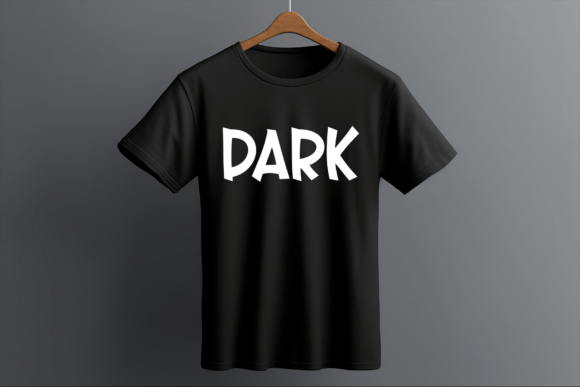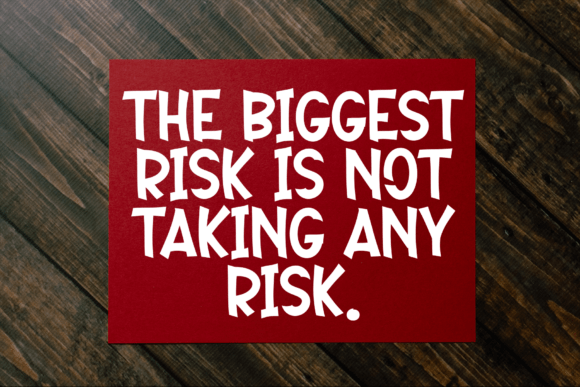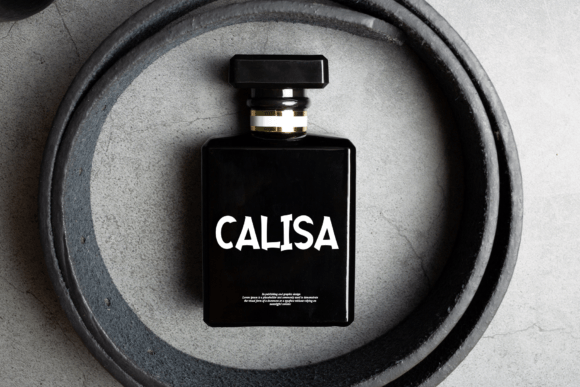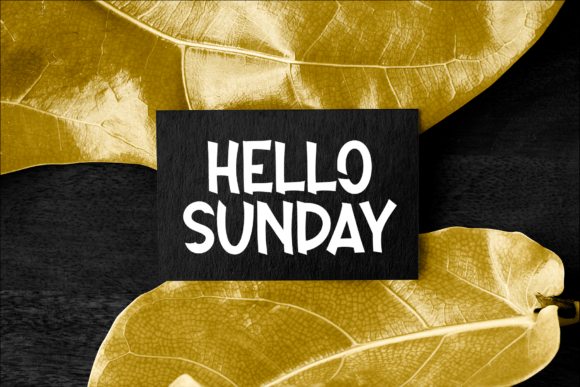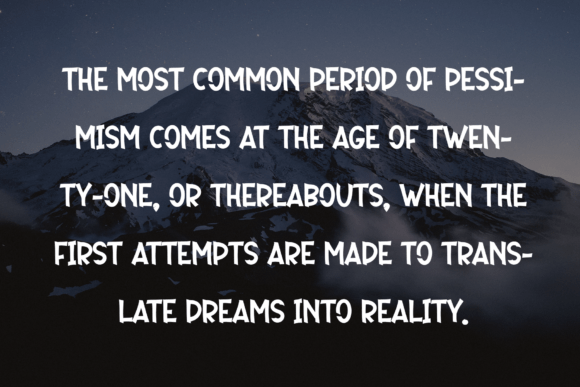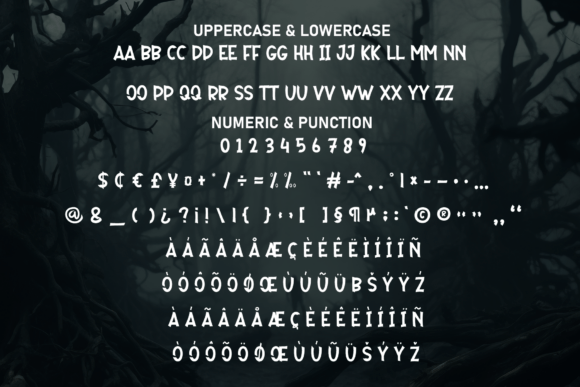
Introducing Ghost Jungle Font: Add a Touch of Whimsy to Your Creative Projects
Are you looking for a font that can add a dash of charm and personality to your designs? Look no further than the Ghost Jungle Font, a beautifully crafted handwritten display font that is sure to elevate your creative projects to the next level. With its unique blend of sweetness and friendliness, this font is perfect for designers and crafters who want to create unforgettable wedding invitations, heartwarming cards, and other designs that require a touch of whimsy and fun.
The Perfect Font for Whimsical Designs
Ghost Jungle Font is a one-of-a-kind font that is designed to bring a sense of playfulness and joy to your creations. Its enchanting handwritten style is brimming with character, making it the perfect companion for any design that needs a sprinkle of magic. Whether you’re creating wedding invitations, greeting cards, or social media graphics, this font is sure to add a touch of warmth and personality to your designs.
Key Features of Ghost Jungle Font
- Handwritten Display Font: Ghost Jungle Font is a beautifully crafted handwritten display font that is perfect for creating eye-catching designs.
- Unique and Expressive: With its unique blend of sweetness and friendliness, this font is sure to add a touch of personality to your designs.
- Versatile: Ghost Jungle Font is a versatile font that can be used for a wide range of design projects, from wedding invitations to social media graphics.
- Experiment with Different Sizes: Ghost Jungle Font looks great in a variety of sizes, from small and delicate to large and bold.
- Play with Colors: This font looks great in a wide range of colors, from bright and bold to soft and pastel.
- Add Decorations: Consider adding decorations, such as flowers or leaves, to your designs to give them an extra touch of whimsy.
Benefits of Using Ghost Jungle Font
There are many benefits to using Ghost Jungle Font in your designs. Here are just a few:
- Adds Personality to Your Designs: This font is sure to add a touch of personality to your designs, making them stand out from the crowd.
- Perfect for Whimsical Designs: Ghost Jungle Font is perfect for designers and crafters who want to create whimsical and playful designs.
- Versatile: Ghost Jungle Font can be used for a wide range of design projects, from wedding invitations to social media graphics.